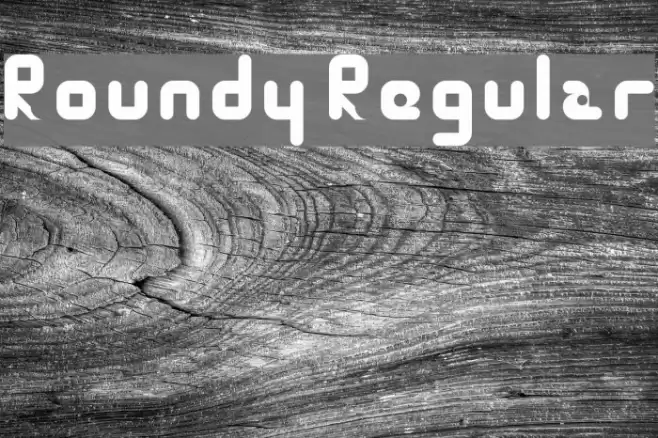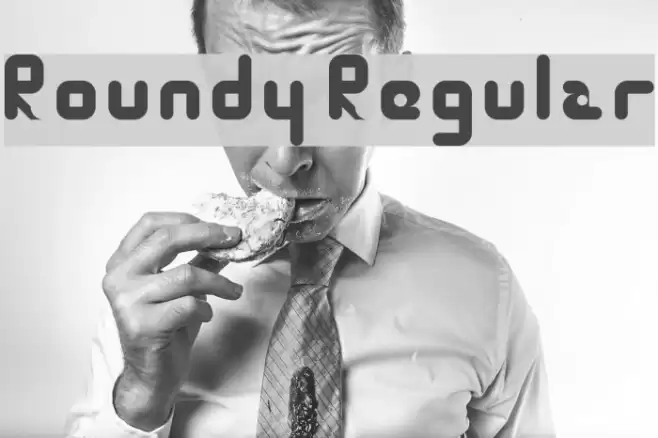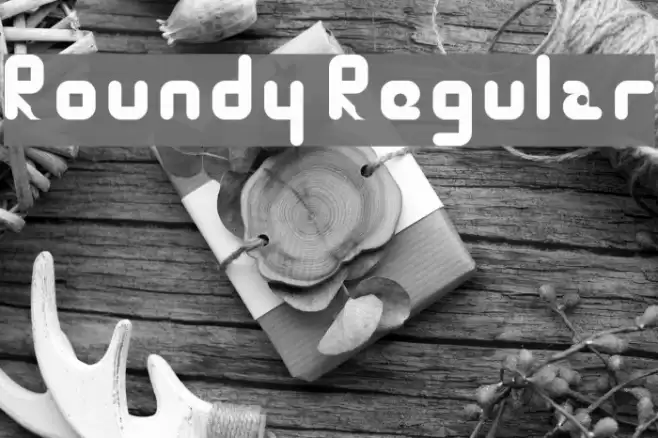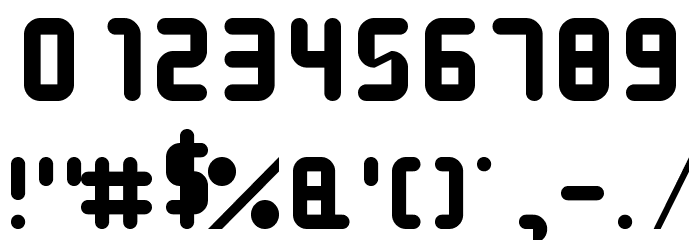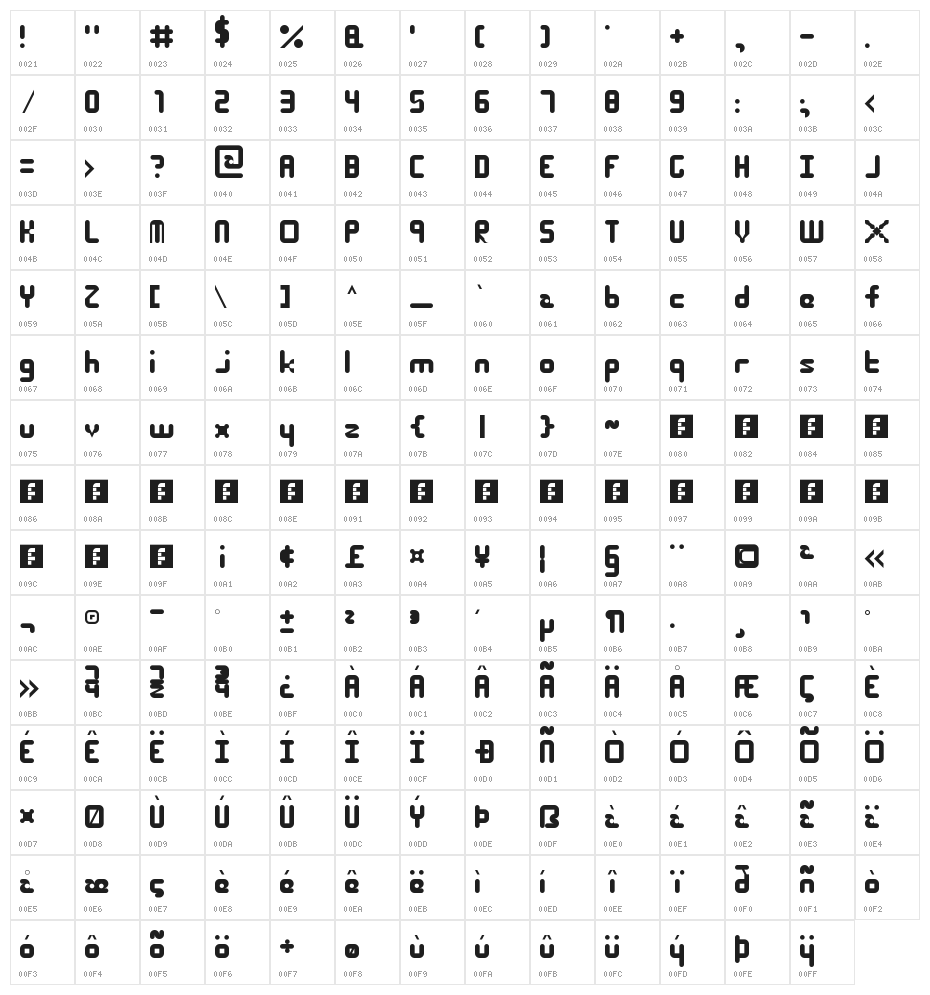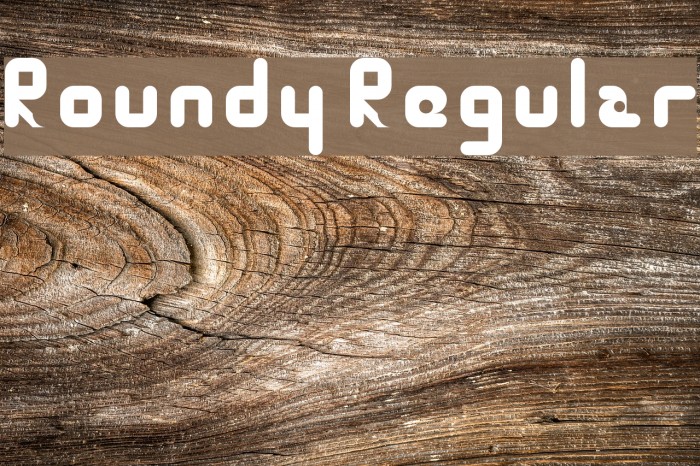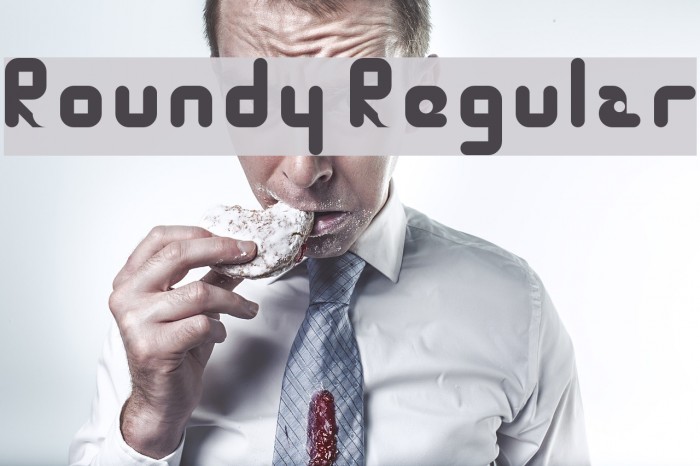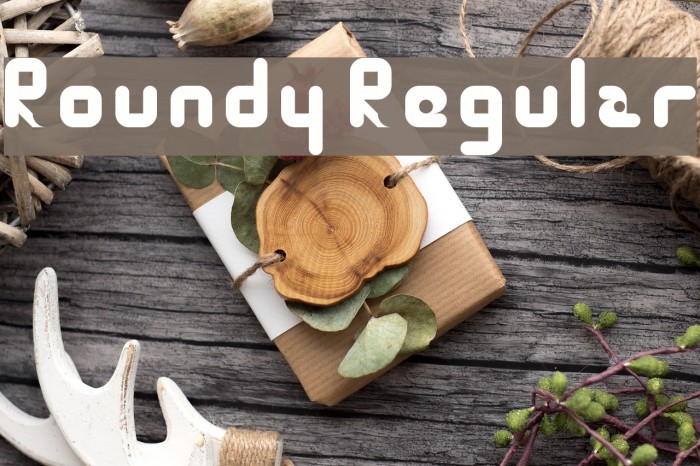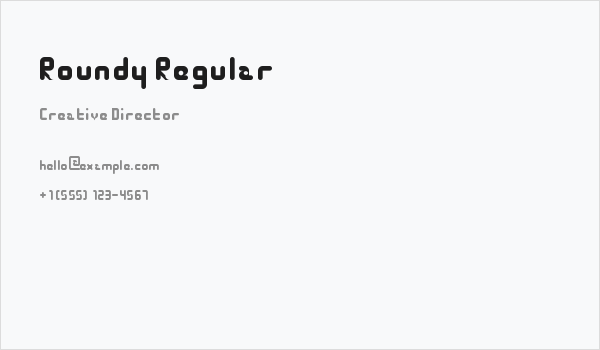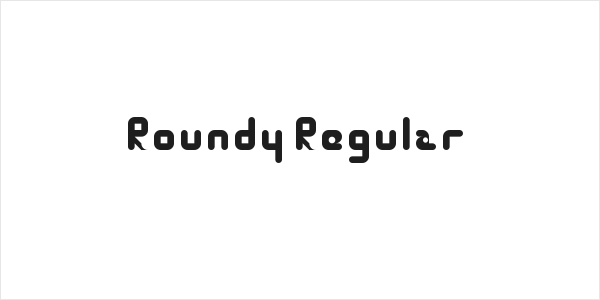
Roundy Regular Font
Roundy Regular Description
This font features a playful and rounded design, characterized by its smooth curves and uniform stroke width. The letters are bold and have a consistent thickness, giving them a friendly and approachable appearance. The rounded terminals and lack of sharp edges contribute to its modern and casual style. The font maintains a balanced and harmonious look, making it suitable for a variety of design applications. Its geometric shapes and clean lines ensure readability while adding a touch of whimsy.
A playful, rounded font with smooth curves and uniform stroke width from Uncategorized fonts.
- Proposed Projects: Ideal for children's books, playful branding, casual invitations, and modern web design.
- Use Case: Headlines, Logos, Casual Text